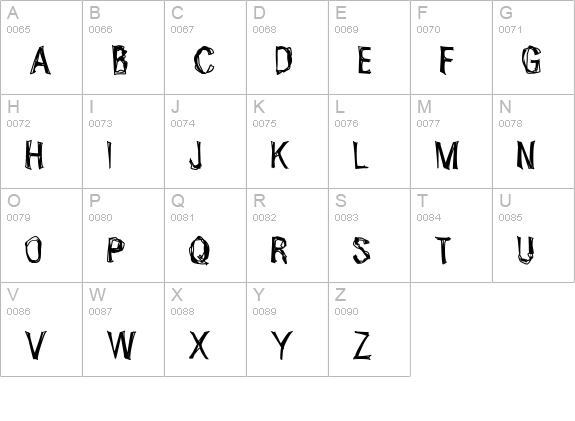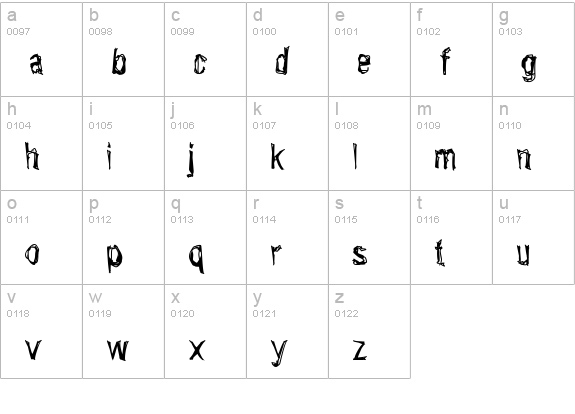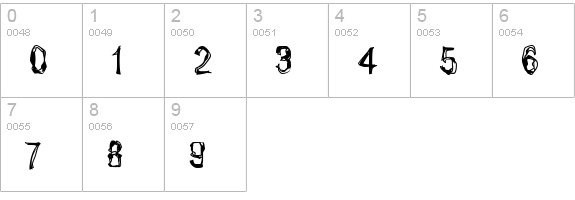
UglyStick AOE Font Details
Introducing UglyStick AOE font, a captivating typeface that breaks the mold with its distinctive and unconventional design. This unique font stands out from the crowd, delivering a bold and edgy aesthetic that instantly grabs attention. UglyStick AOE font is perfect for those who dare to be different and want to make a statement with their typography. Featuring an array of sharp angles and jagged edges, UglyStick AOE font exudes a sense of raw energy and rebelliousness. Its bold strokes and uneven letterforms create a visually striking display that demands to be noticed. This font is not for the faint of heart; it is designed for those who embrace the unconventional and embrace their individuality. But what sets UglyStick AOE font apart is not just its striking appearance; it is also its versatility. Whether you're designing a logo, poster, or website, this font adapts effortlessly to any creative project. Its bold and impactful presence adds a touch of personality and character to any design, making it truly stand out from the crowd. And the best part? UglyStick AOE font is available for free! That's right, you can download this exceptional font without any cost at FontsMarket.com. This means you can unleash your creativity without breaking the bank. So why wait? Grab your free copy of UglyStick AOE font today and let your imagination run wild.